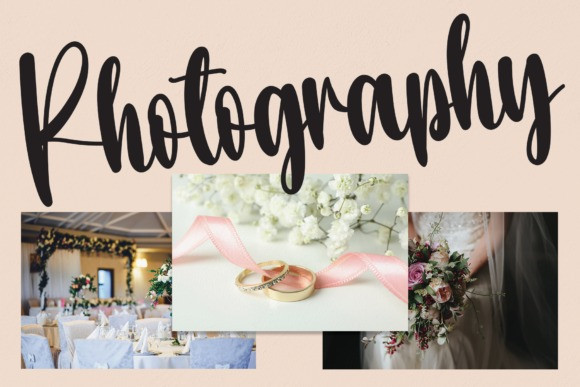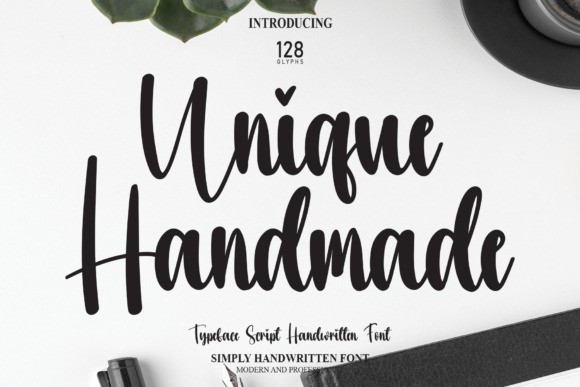
Unique Handmade Font
Unique Handmade Font, The latest style letters are perfect for wall displays, wedding invitations, social media post logos, advertisements, product packaging, product designs, labels, photography, watermarks, invitations, stationery, and any project that requires a handwritten taste.